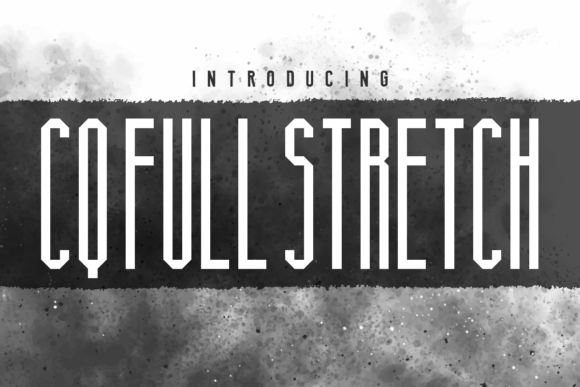
CQ Full Stretch Font: Elevate Your Designs with a Simple yet Striking Typeface
In the world of typography, a font can make or break a design. With the right typeface, you can convey your message with clarity and style. This is where CQ Full Stretch Font comes in – a simple yet striking typeface designed by Chequered Ink. In this article, we’ll dive into the world of CQ Full Stretch, exploring its features, benefits, and uses, making it a must-read for designers and crafters alike.
What is CQ Full Stretch Font?
CQ Full Stretch Font is a modern sans-serif typeface designed by Chequered Ink, a renowned foundry known for its creative and functional fonts. As the name suggests, CQ Full Stretch is a font that stretches the boundaries of traditional typography, offering a unique and eye-catching aesthetic. Its clean lines, simple shapes, and generous spacing make it an excellent choice for a wide range of design projects.
Key Features of CQ Full Stretch Font
So, what makes CQ Full Stretch Font stand out from the crowd? Here are some of its key features:
- Clean and Simple Design: CQ Full Stretch boasts a minimalist design, making it perfect for designs that require a subtle yet effective typography.
- Stretched Letterforms: The font’s letterforms are carefully stretched to create a unique and visually appealing effect, setting it apart from traditional fonts.
- Generous Spacing: The font’s generous spacing ensures that each letter has enough room to breathe, making it easy to read and understand.
- Modern and Versatile: CQ Full Stretch is a versatile font that can be used in a variety of design projects, from modern branding to digital signage.
Benefits of Using CQ Full Stretch Font
Now that we’ve explored the features of CQ Full Stretch Font, let’s discuss its benefits. Here are some reasons why designers and crafters love this font:
- Enhances Readability: The font’s clean design and generous spacing make it easy to read, even at smaller font sizes.
- Boosts Visual Appeal: The stretched letterforms and modern design of CQ Full Stretch add a touch of sophistication and style to any design project.
- Increases Versatility: This font can be used in a variety of design projects, from print materials to digital platforms.
- Easy to Pair: CQ Full Stretch Font pairs well with other fonts, making it easy to create harmonious typography.
Uses of CQ Full Stretch Font
CQ Full Stretch Font is a versatile typeface that can be used in a variety of design projects. Here are some examples:
- Branding and Logos: Use CQ Full Stretch to create modern and memorable logos that stand out from the crowd.
- Digital Signage: The font’s clean design and stretched letterforms make it perfect for digital signage, such as menu boards and promotional displays.
- Print Materials: CQ Full Stretch Font can be used in a range of print materials, including brochures, flyers, and posters.
- Web Design: The font’s modern design and readability make it an excellent choice for web design, including website headers and body text.
In conclusion, CQ Full Stretch Font is a simple yet striking typeface that can elevate your designs to the next level. Its clean design, stretched letterforms, and generous spacing make it perfect for a wide range of design projects. Whether you’re a designer or crafter, CQ Full Stretch Font is definitely worth checking out. So why not give it a try and see how it can enhance your designs?